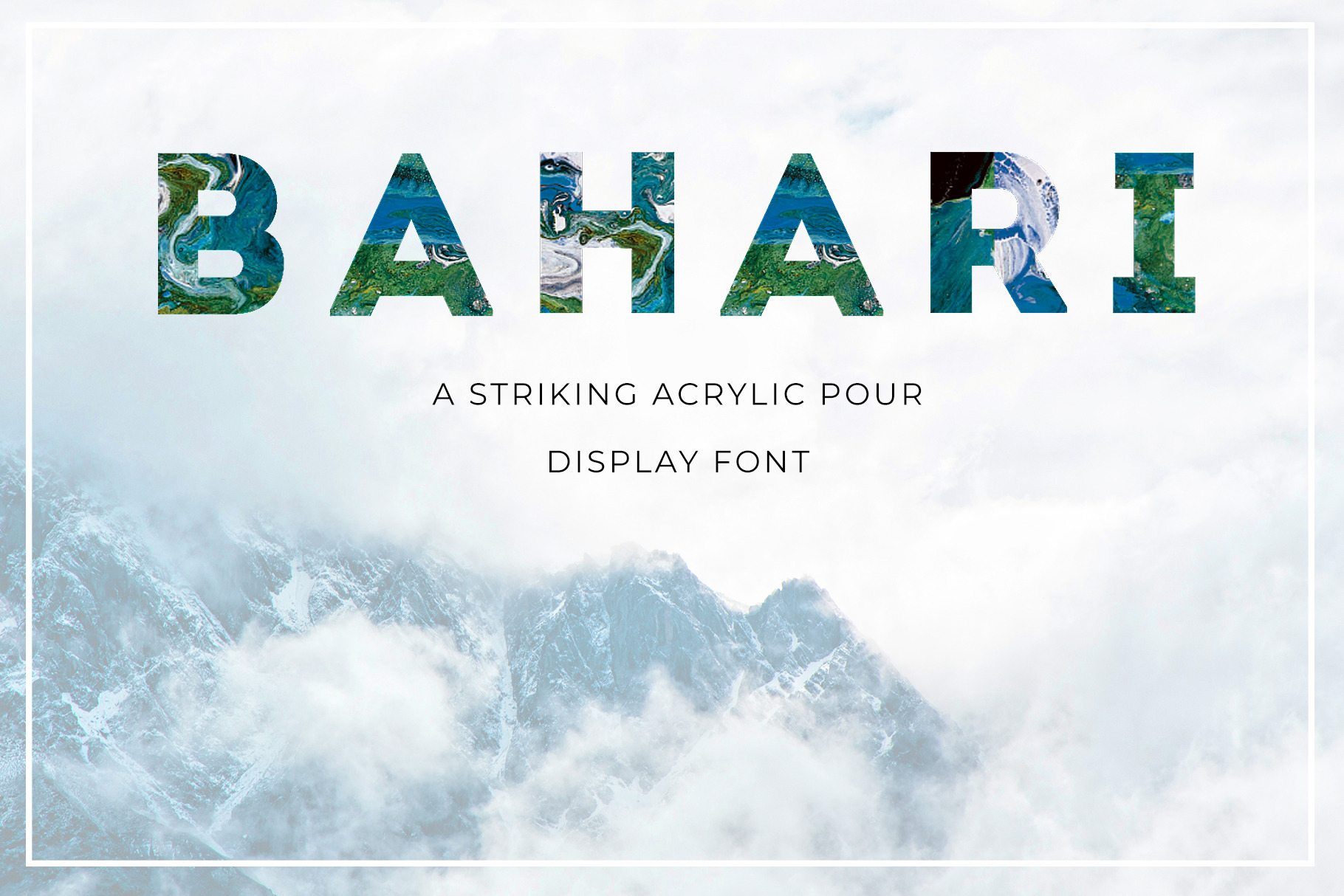
BAHARI Display Font
BAHARI is a bold handmade font that marries clean lines and acrylic dirty pours!
This .otf display font (all caps only) is quirky and refreshing, perfect for the spring and summer.